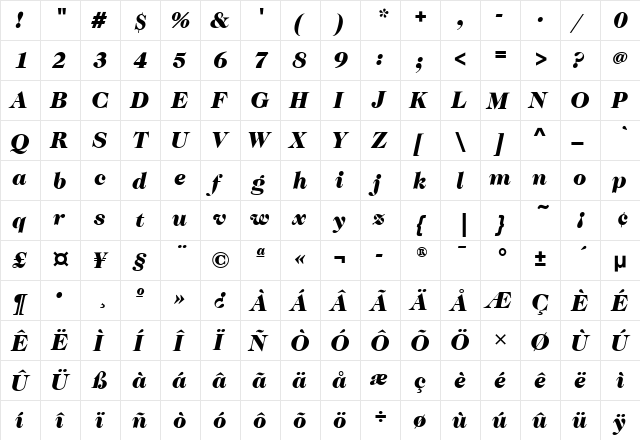
CaslonTwoTweFourMdITC Bold Italic Font Preview
Design Context for CaslonTwoTweFourMdITC Typeface
CaslonTwoTweFourMdITC offers clean, dependable letterforms without strong stylistic allegiance, making it a practical choice for designers who need flexibility. The dynamic lean of this cut emphasises speed and emphasis in any layout. Its bold stroke weight gives it real presence on the page.
Pro Tip: Try CaslonTwoTweFourMdITC for annotation and caption copy alongside an upright companion — the contrast in angle creates a dynamic but ordered typographic system.